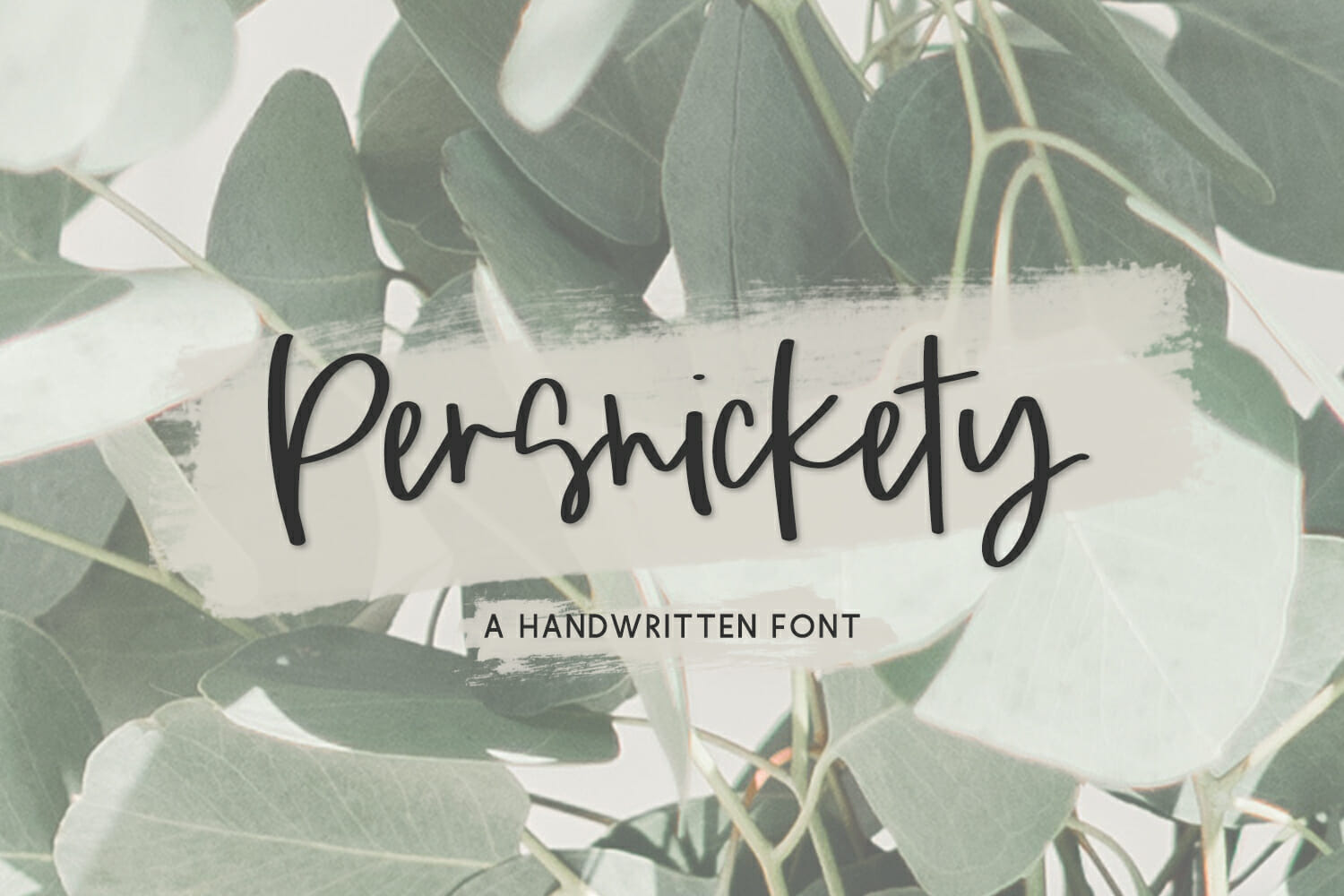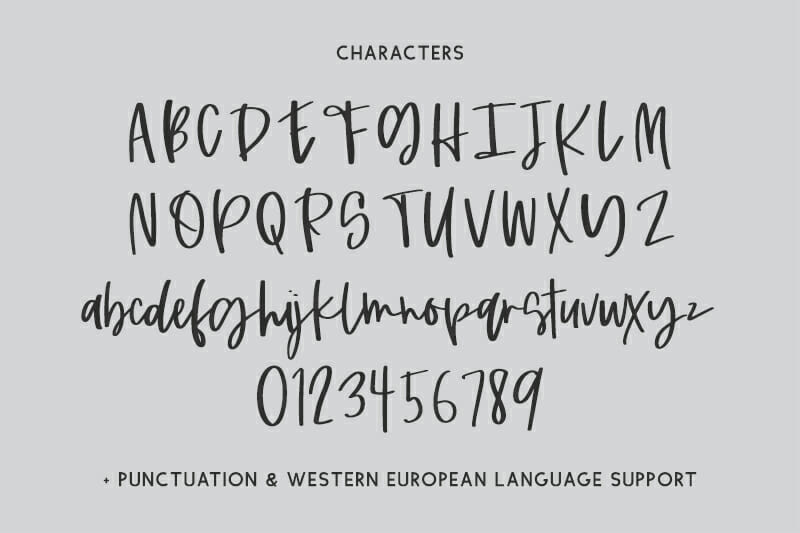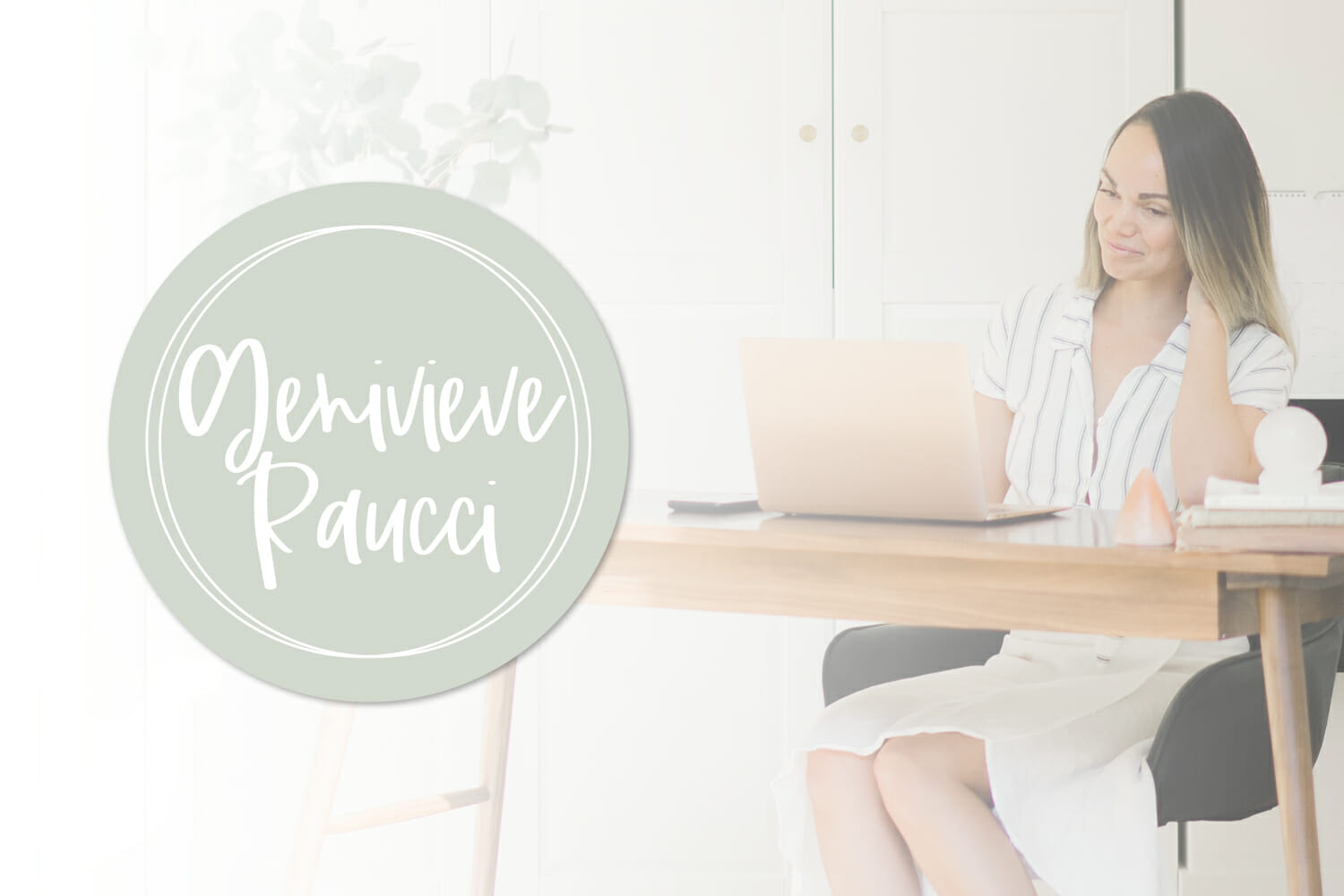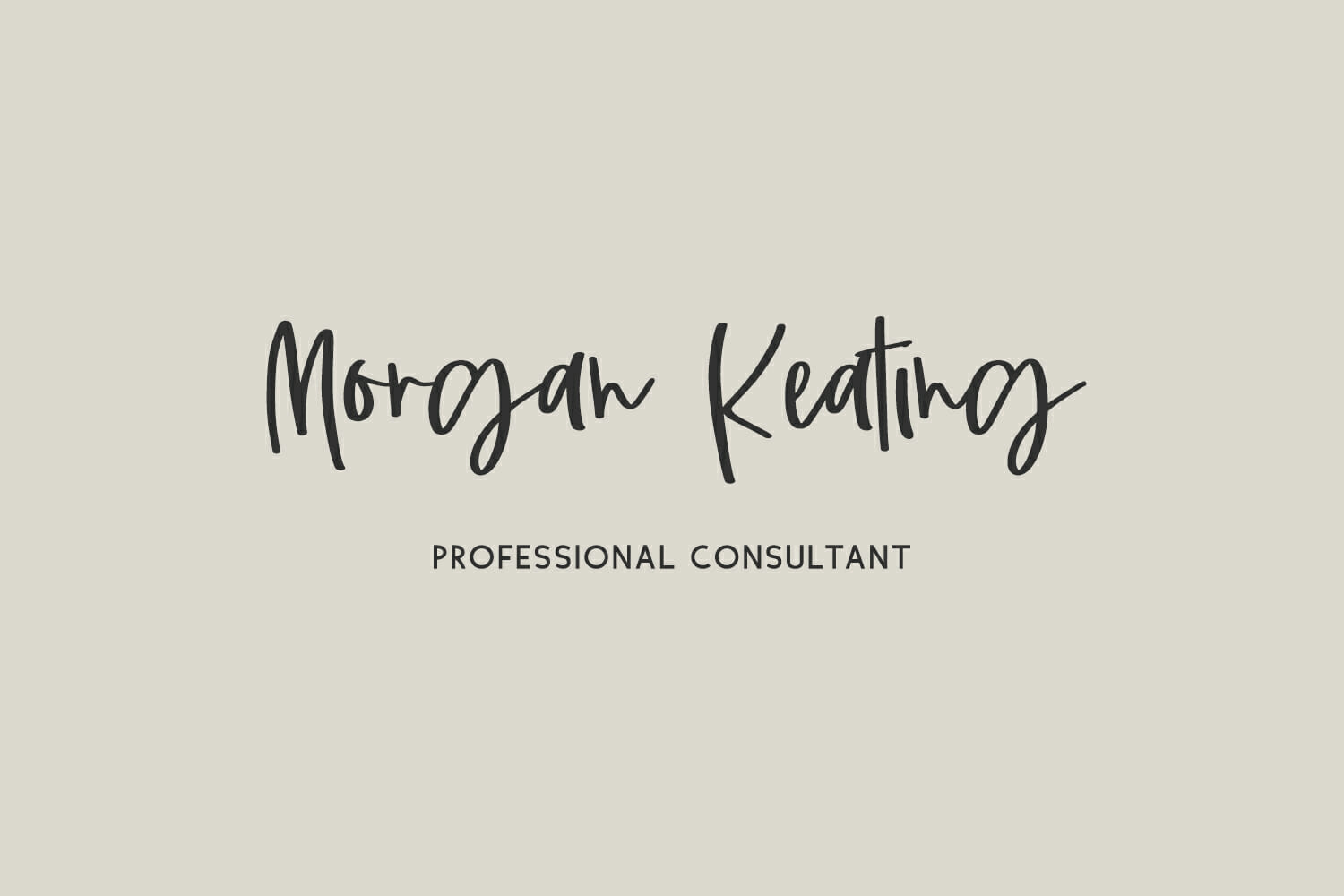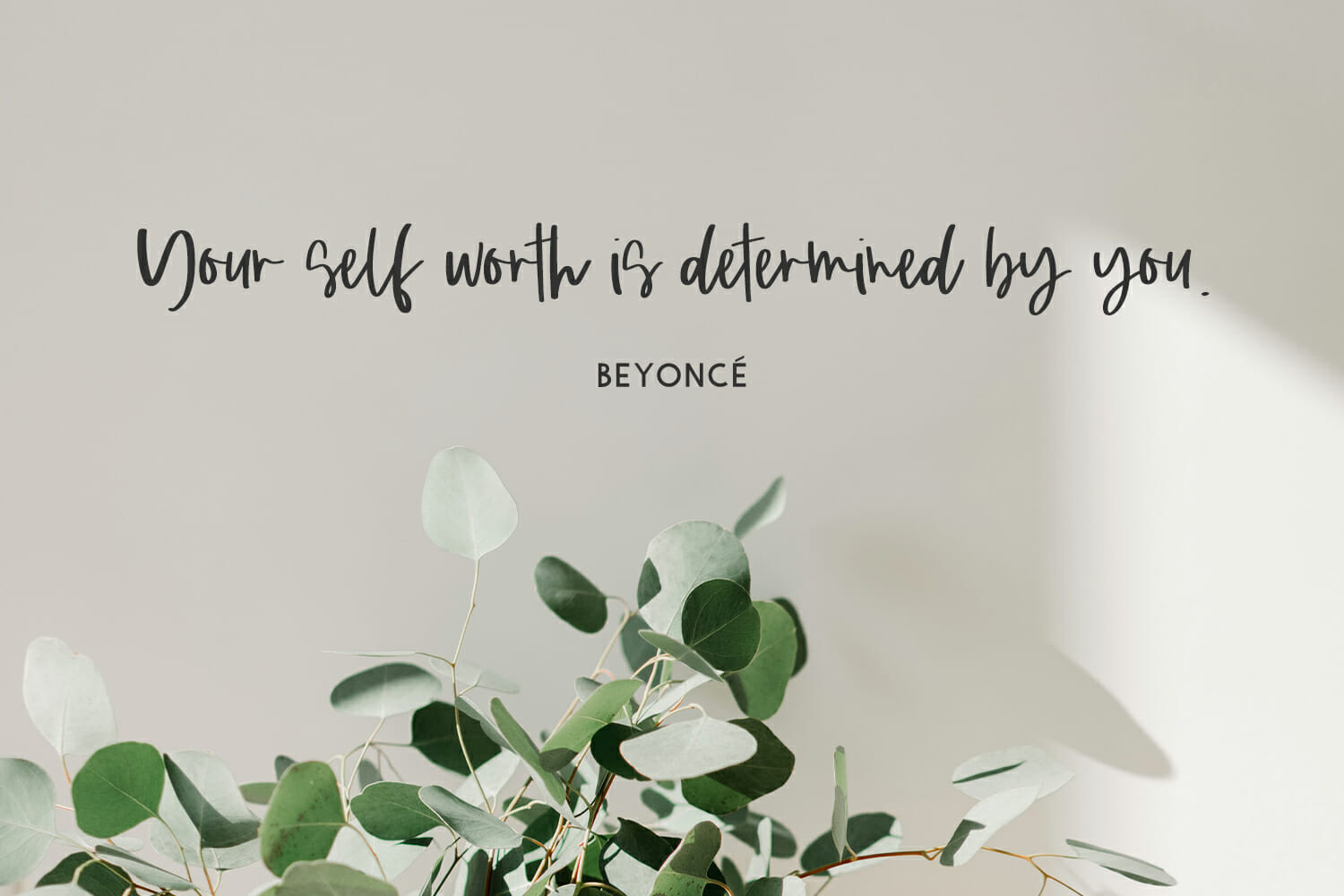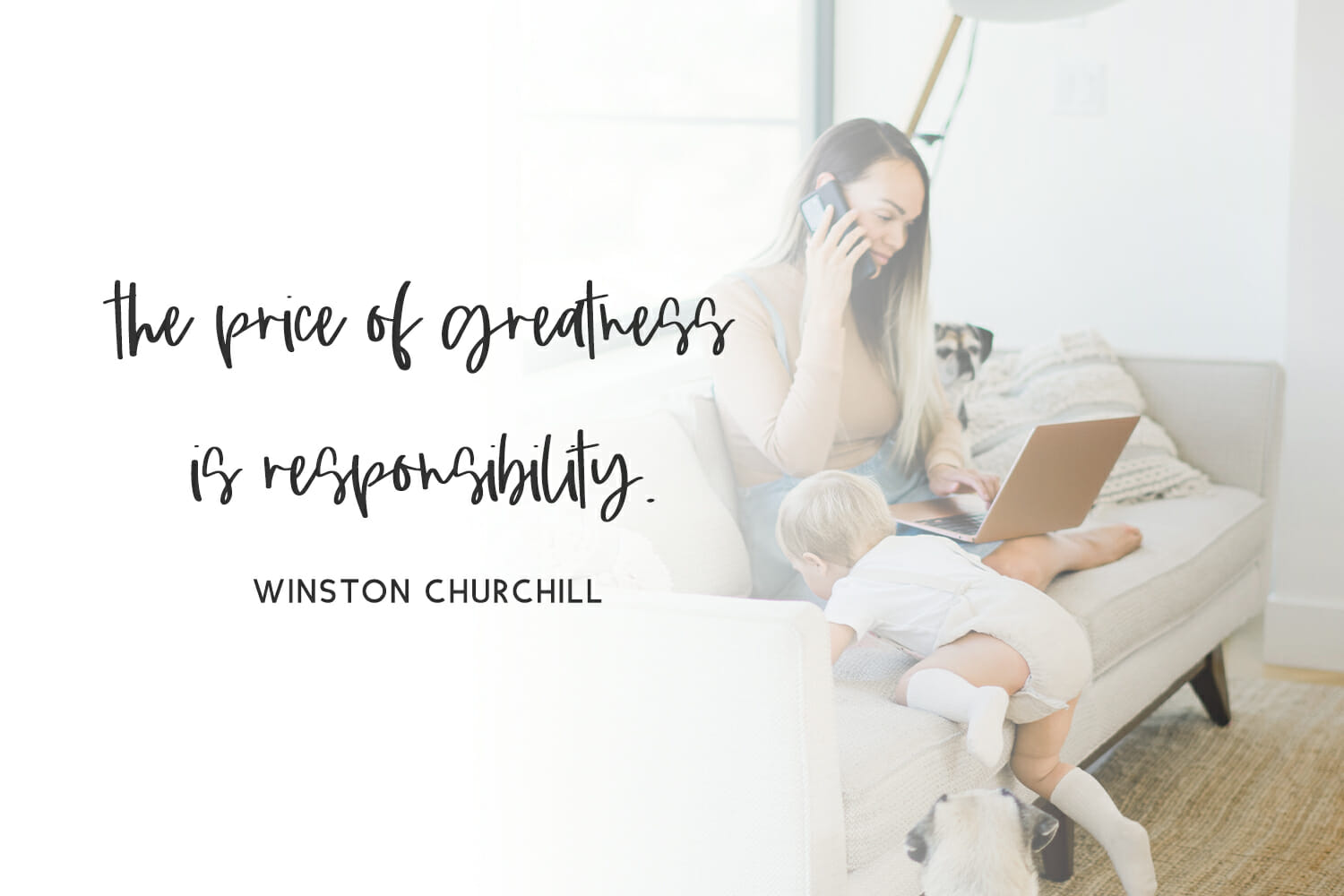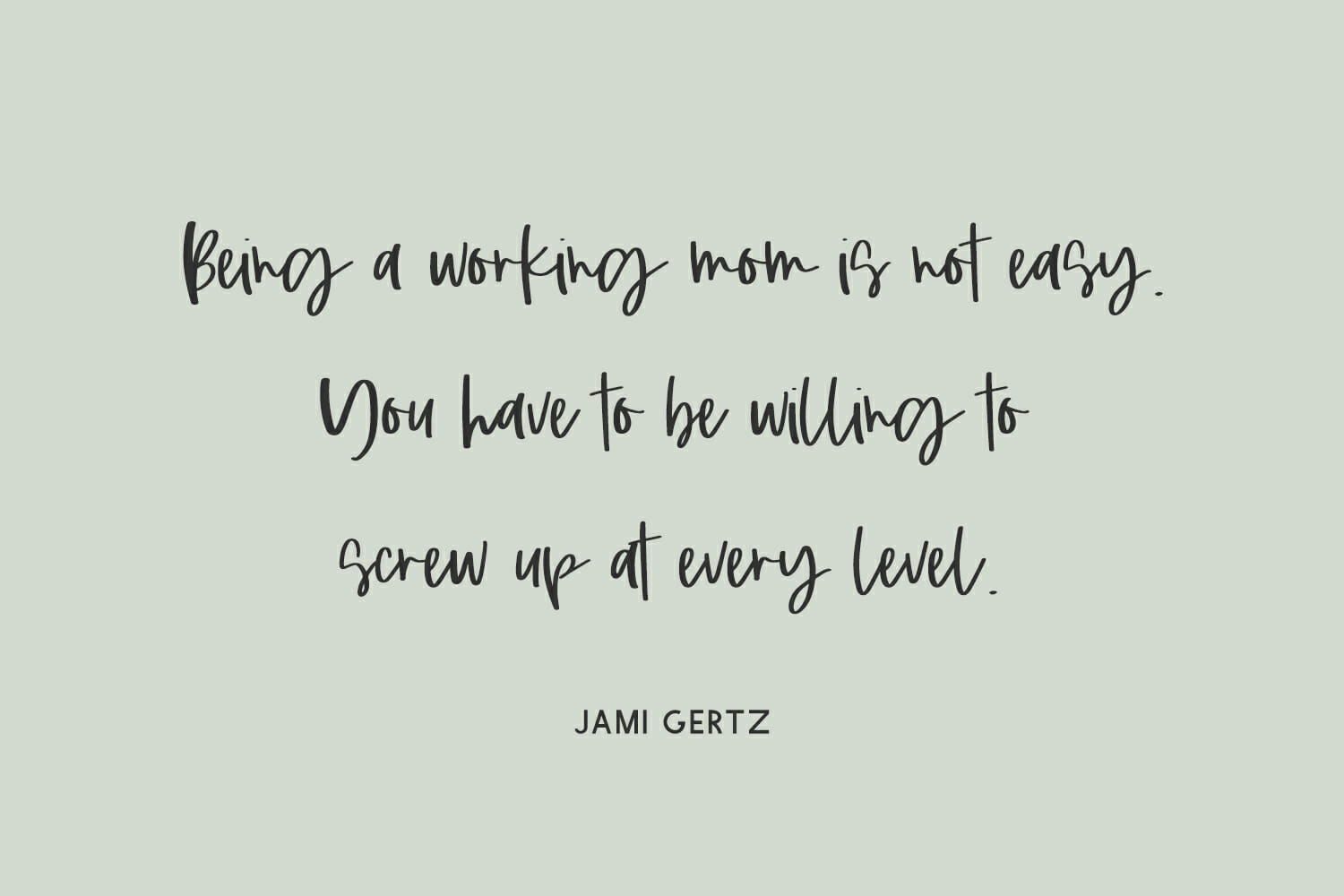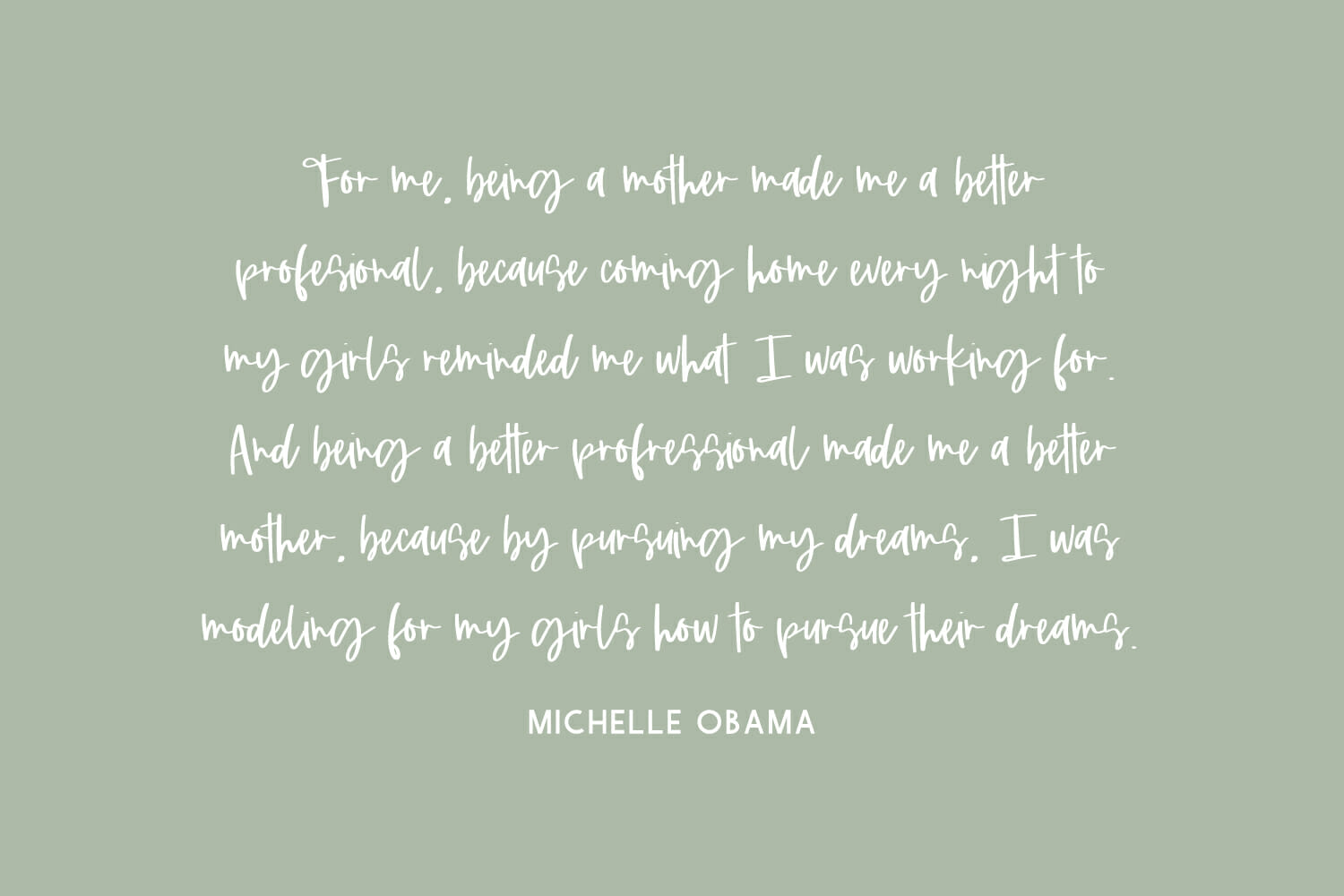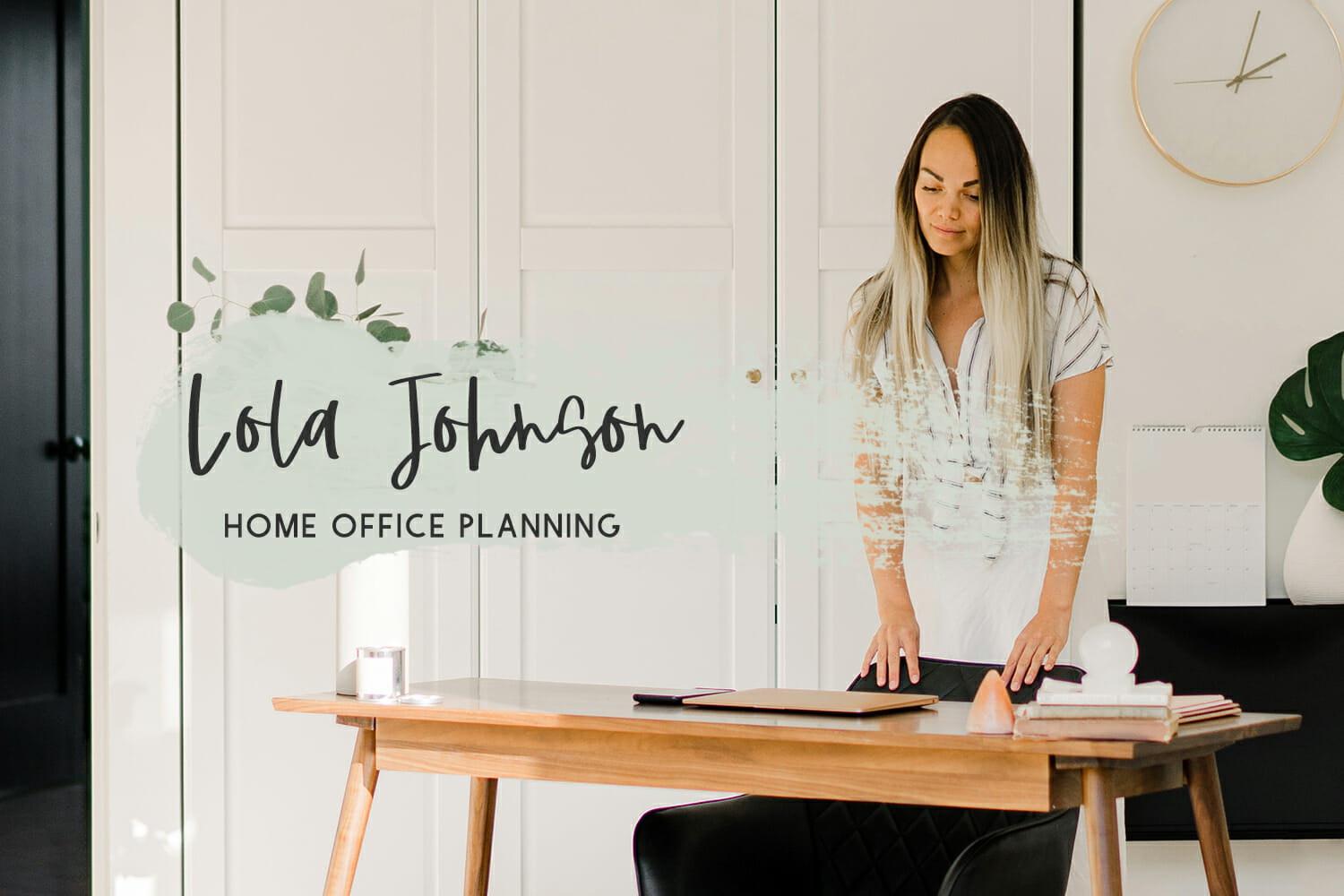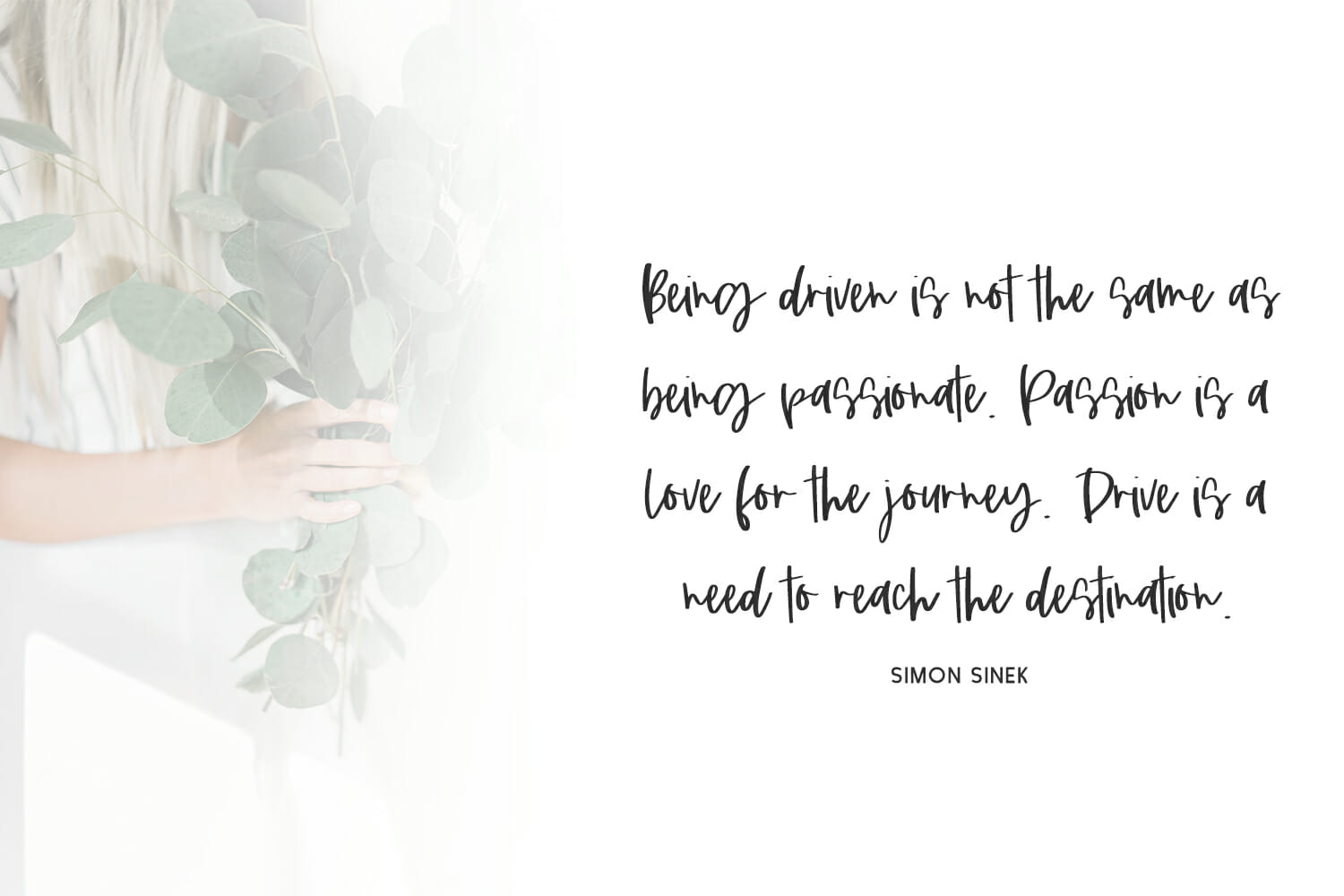
Persnickety Script
Introducing Persnickety Script, a handlettered calligraphy script with the slightest bit of bounce & messiness.
Persnickety Script is best for:
– logos + branding for gender neutral applications
– header elements that need a casual handwritten touch
– quote graphics for social media
– crafting with Cricut or Silhouette machines, since it has a super smooth edge for cutting vinyl!